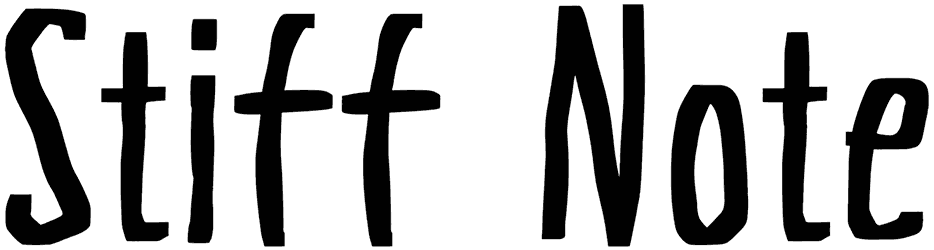
Stiff Note Font
Casual and modern letterforms, such as the present offer, are one of the most popular lettering styles that can reflect a cute and natural feeling. The Stiff Note font covers untidy and realistic letters that could be perfect for a daily story or a back-to-school poster. Test this handwritten font for your upcoming project and communicate well with your followers.